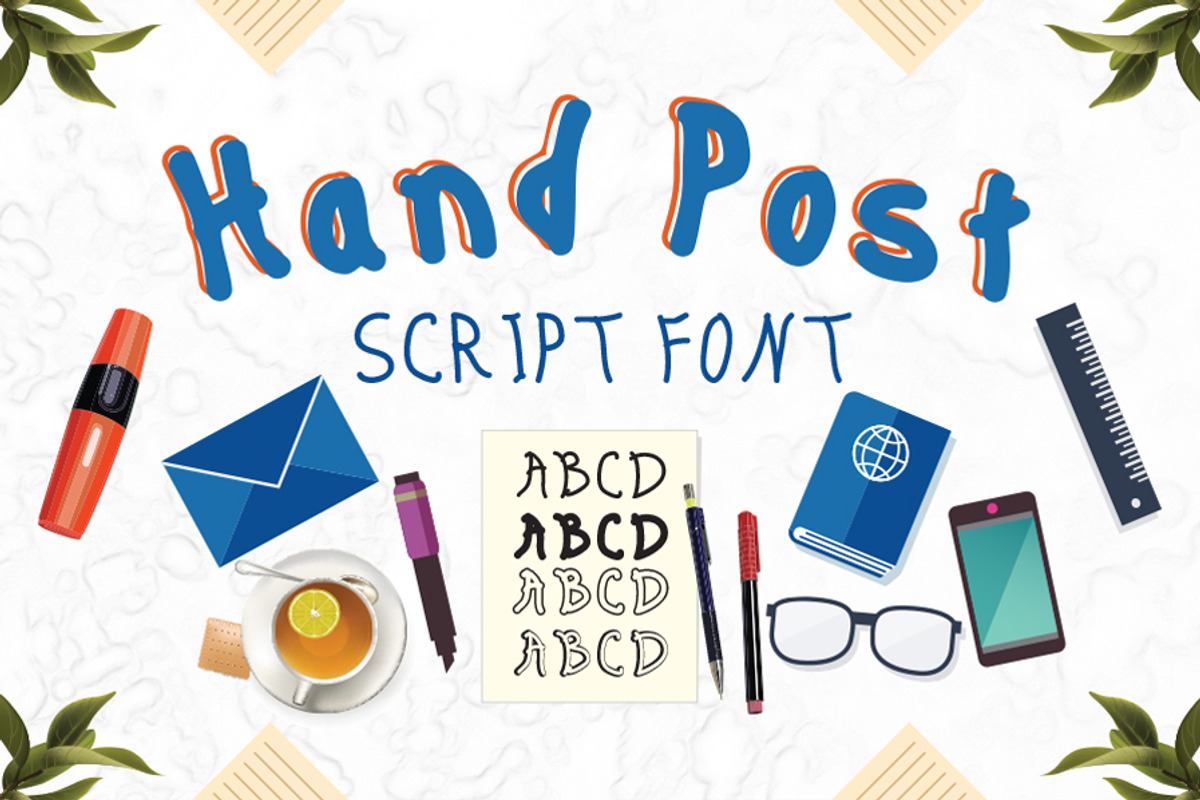
The bundle includes multiple script, display, and serif fonts, all with a casual, approachable feel. Each font is designed with distinct characteristics to bring warmth, fun, and authenticity to your typography. It includes uppercase and lowercase letters, numerals, punctuation, and multilingual support for global usability.
Whether you're crafting a creative brand identity, designing stationery, or working on a DIY project, Hand Post 10 Fonts brings a handcrafted touch to your work.